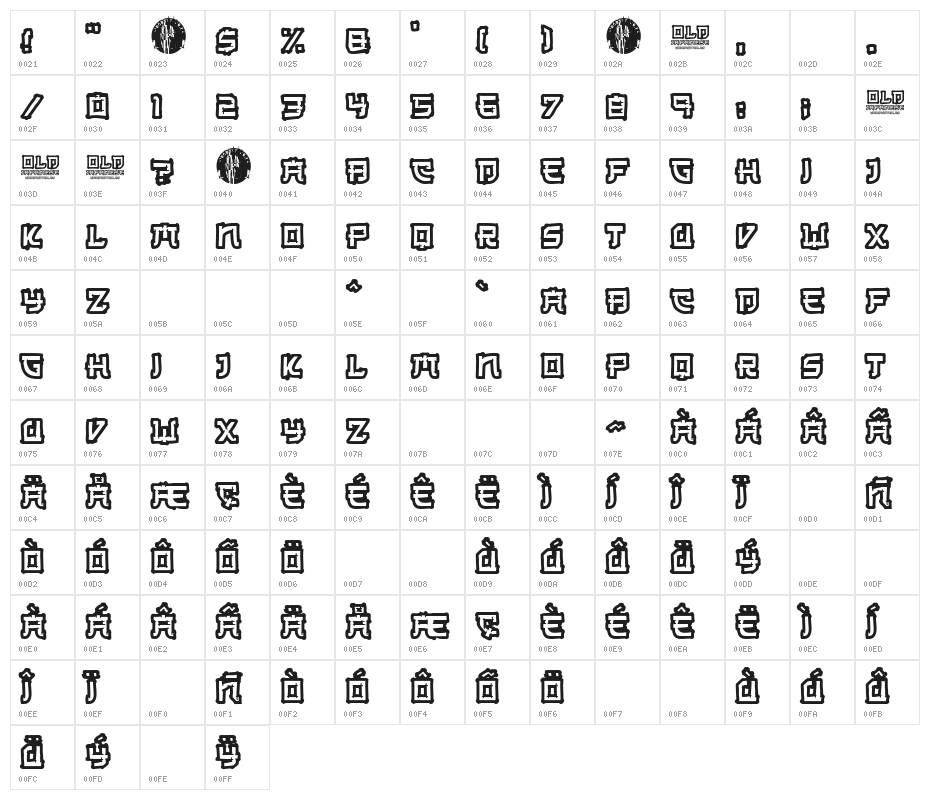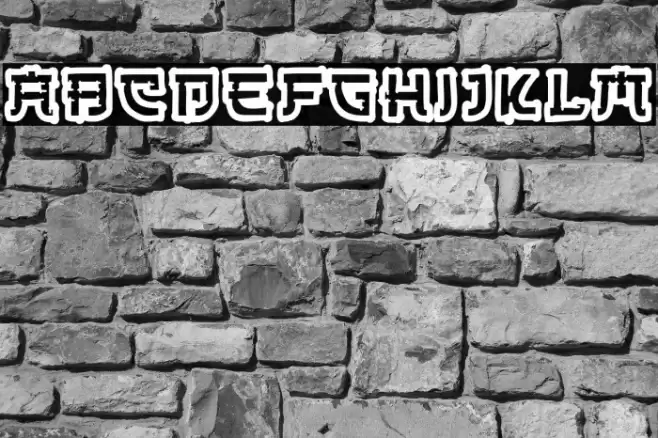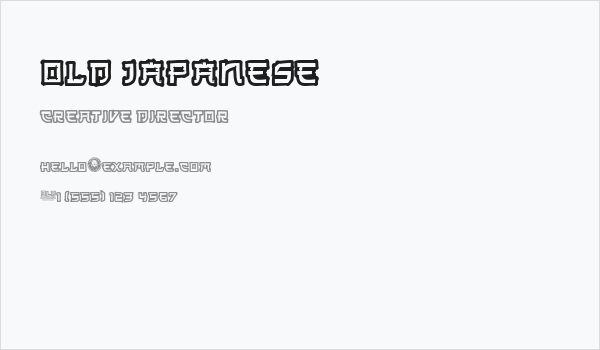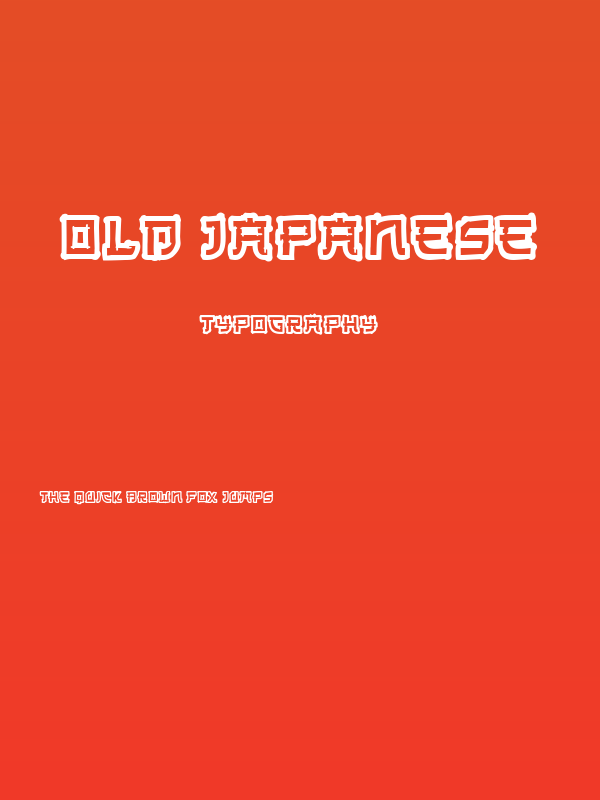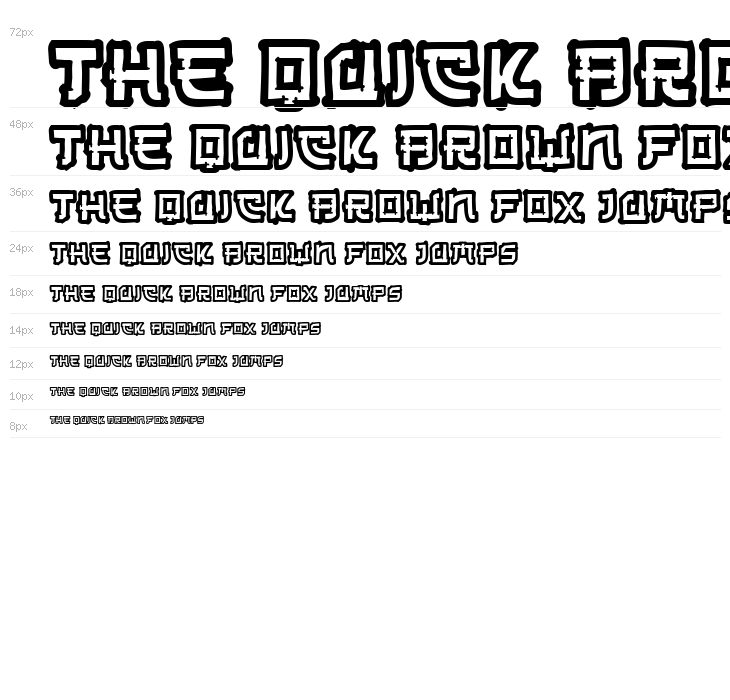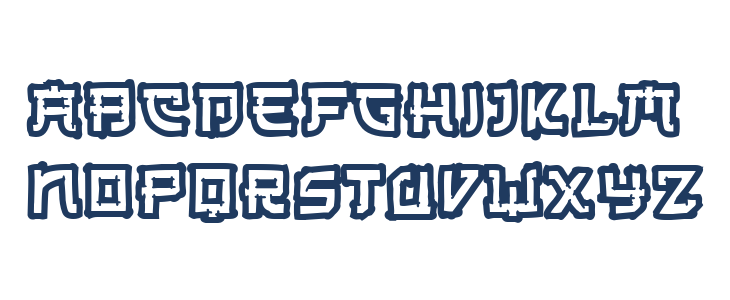
Old Japanese Font
Old Japanese Description
This font features a bold and striking design with a distinctly geometric and angular style. The characters are outlined with a thick black border, giving them a three-dimensional appearance. The interior of each letter is filled with a white space, creating a strong contrast that enhances readability. The overall aesthetic is reminiscent of traditional Japanese calligraphy, yet with a modern twist that incorporates elements of graffiti art. The characters are evenly spaced, and the font maintains a consistent weight throughout, making it suitable for impactful and eye-catching designs.
| Proposed Projects | Ideal for posters, album covers, branding, and any project requiring a bold, cultural aesthetic. |